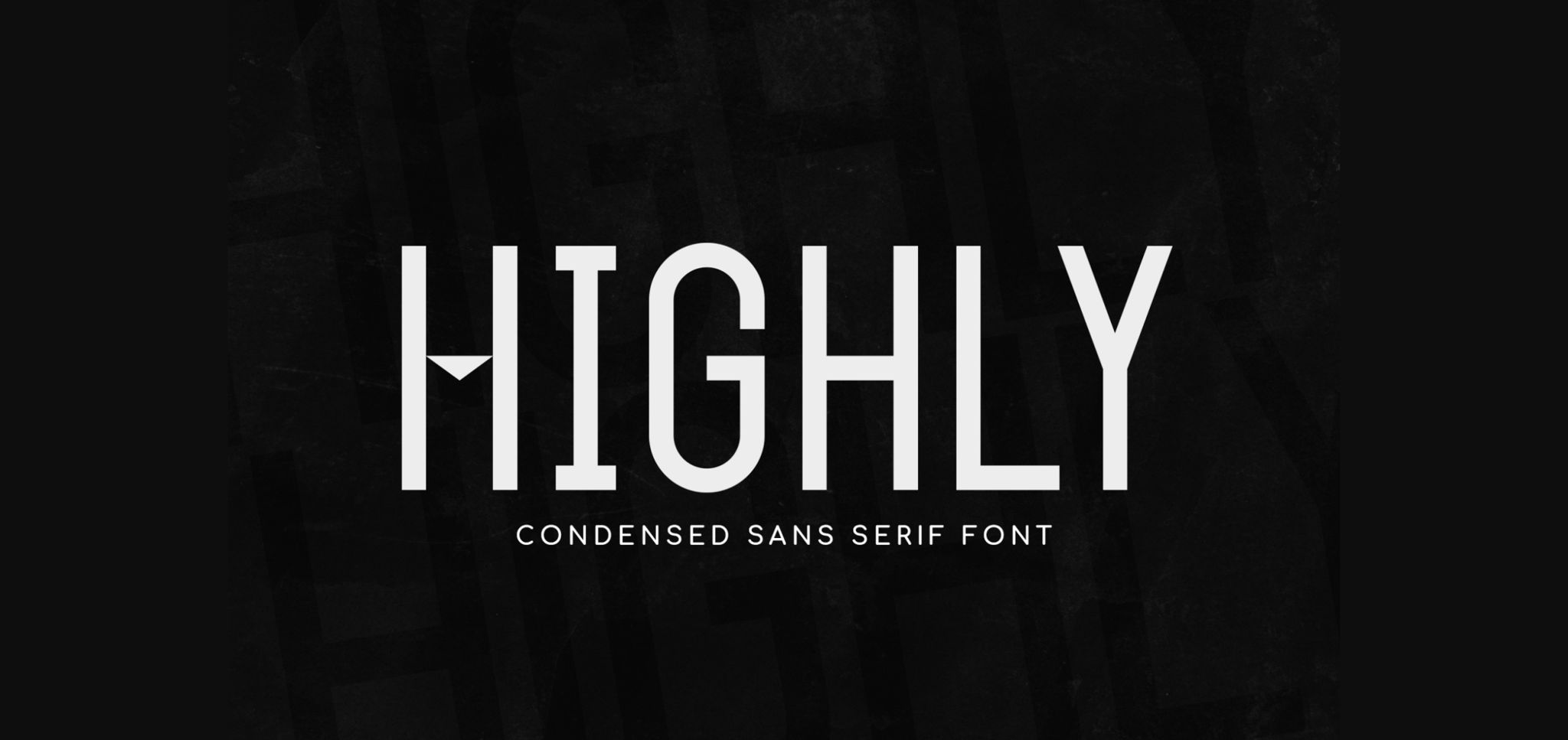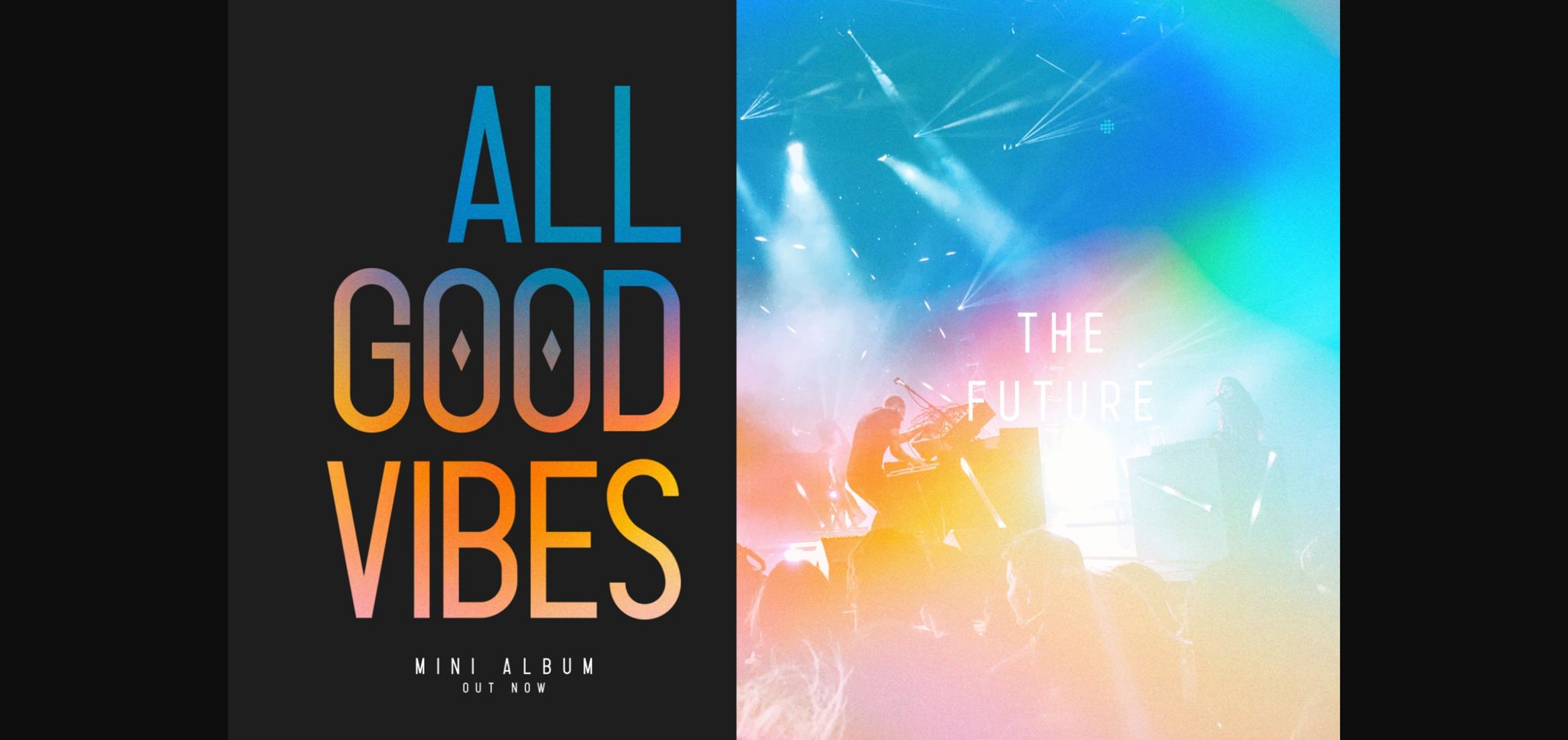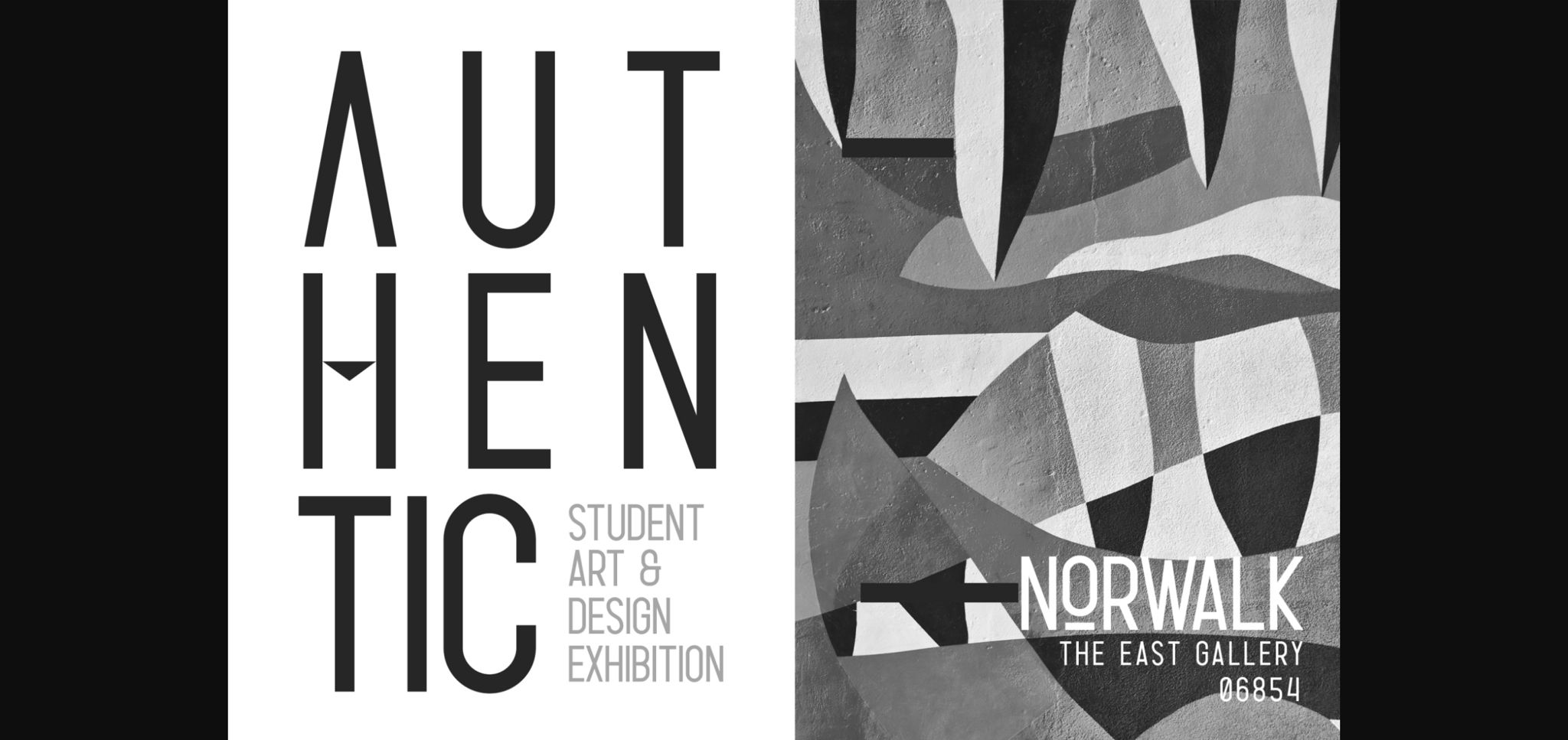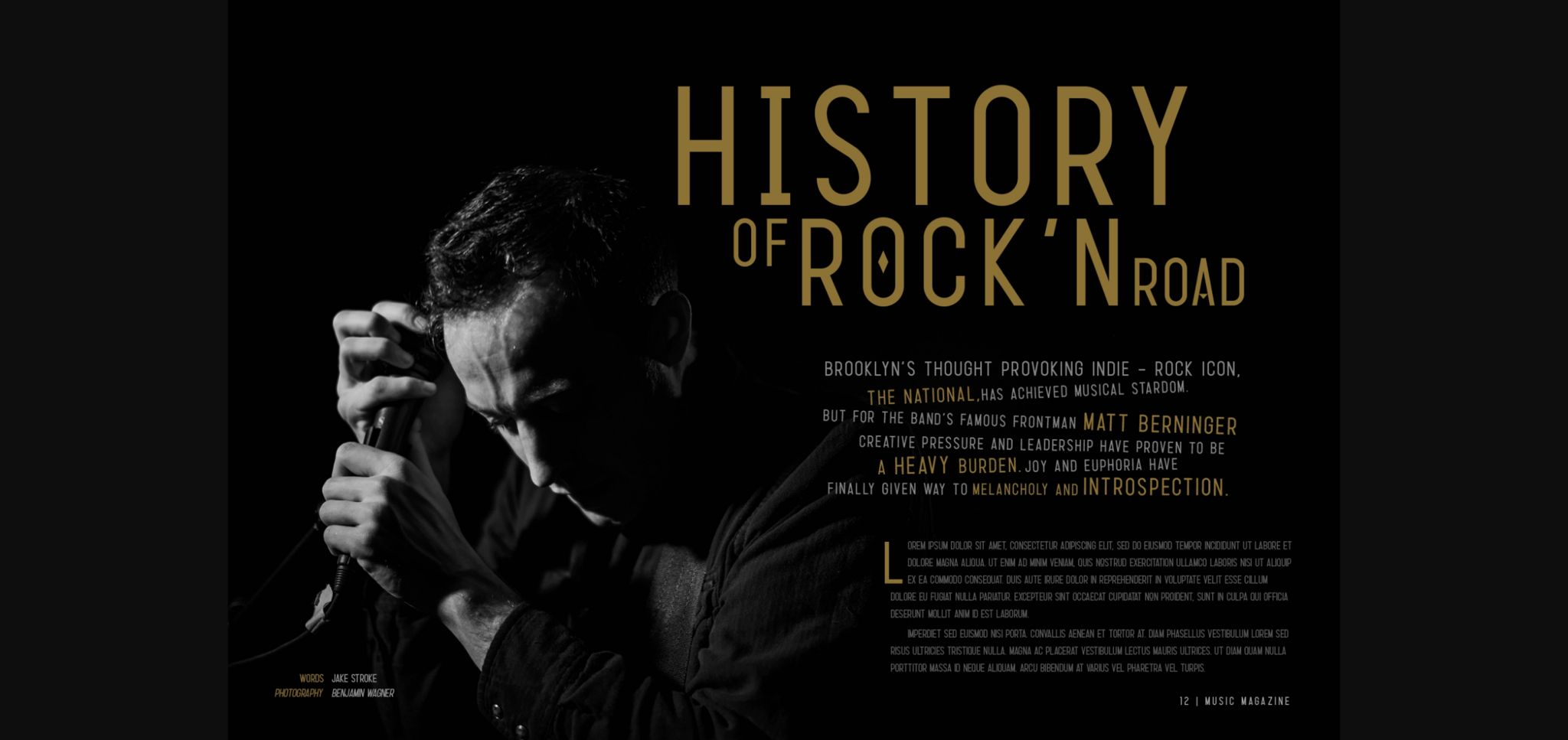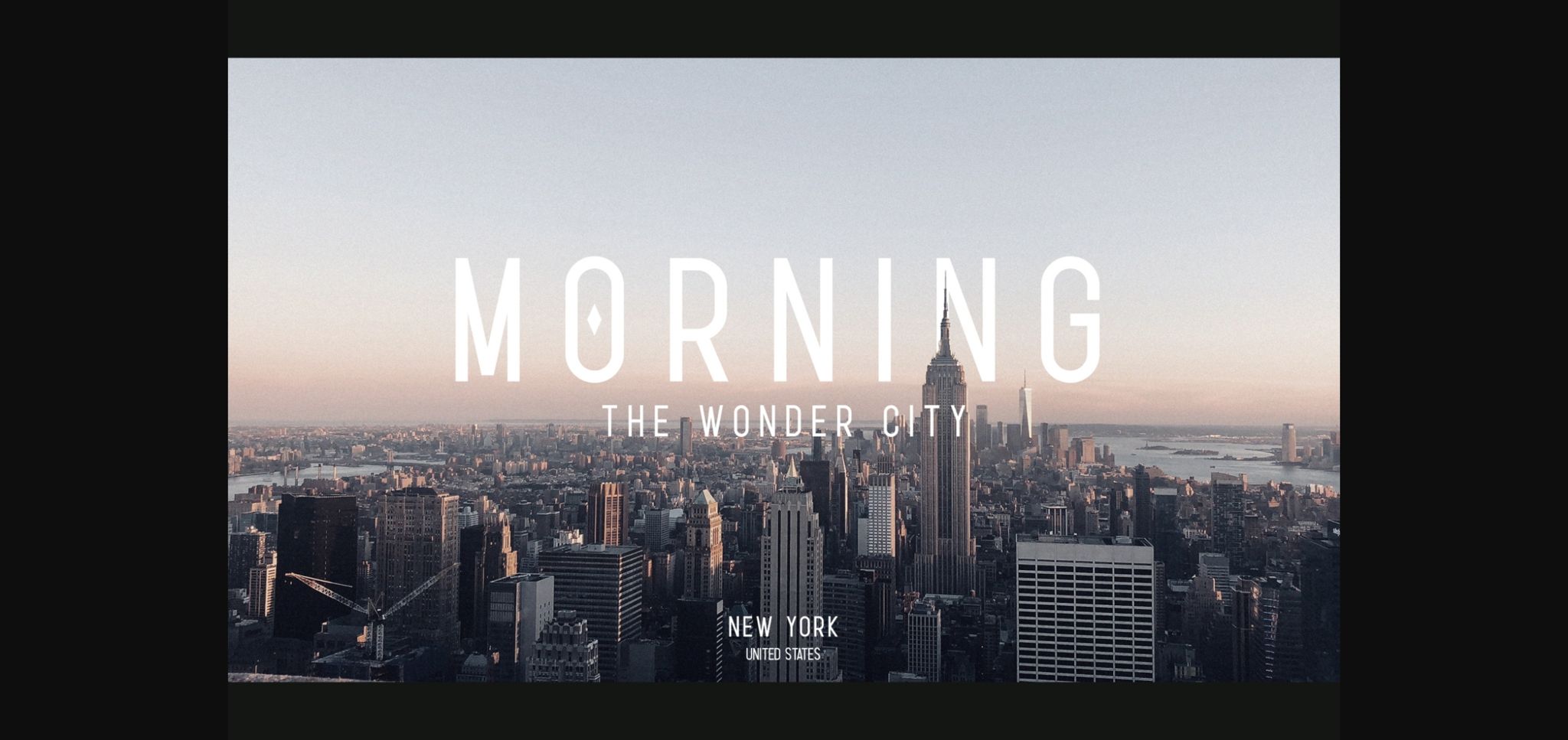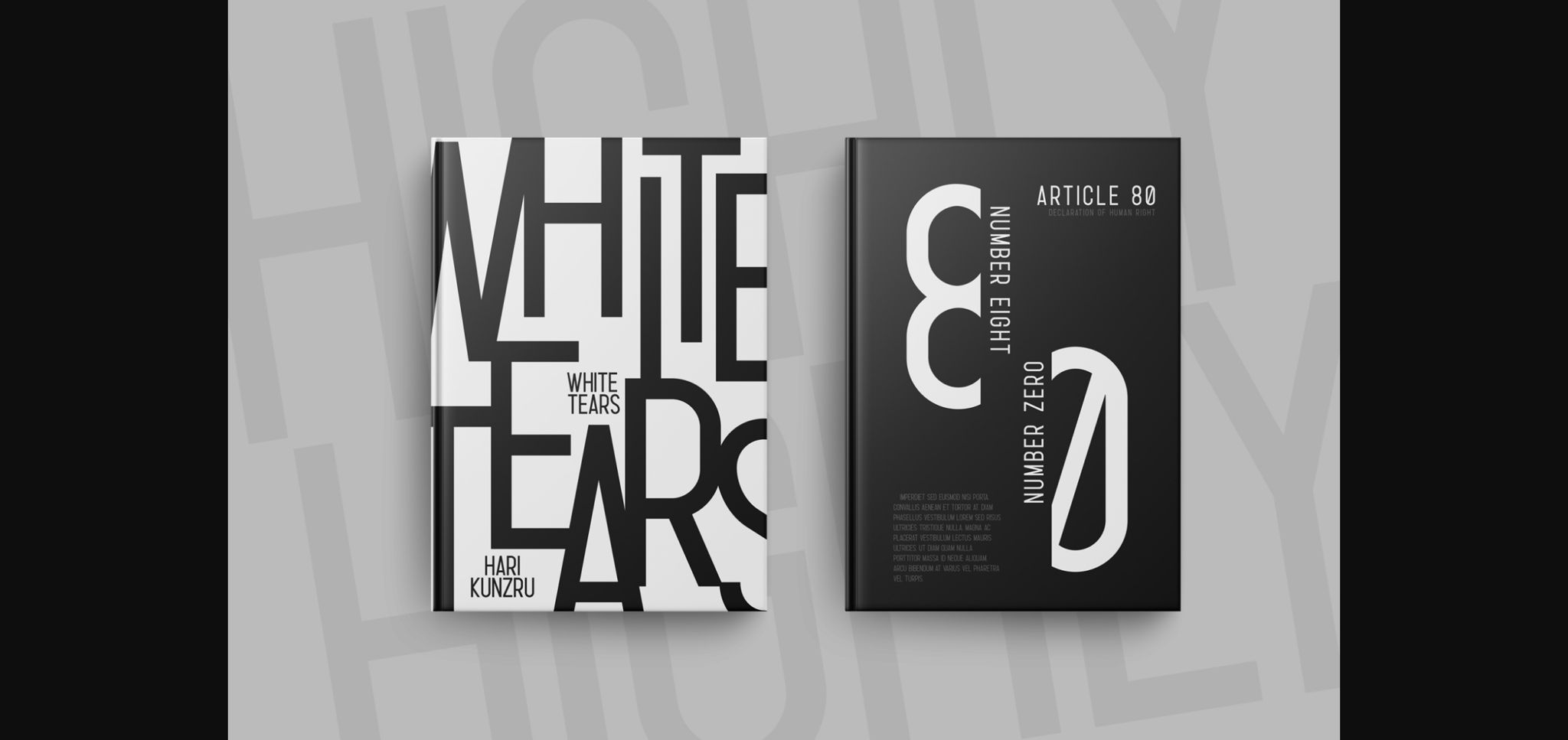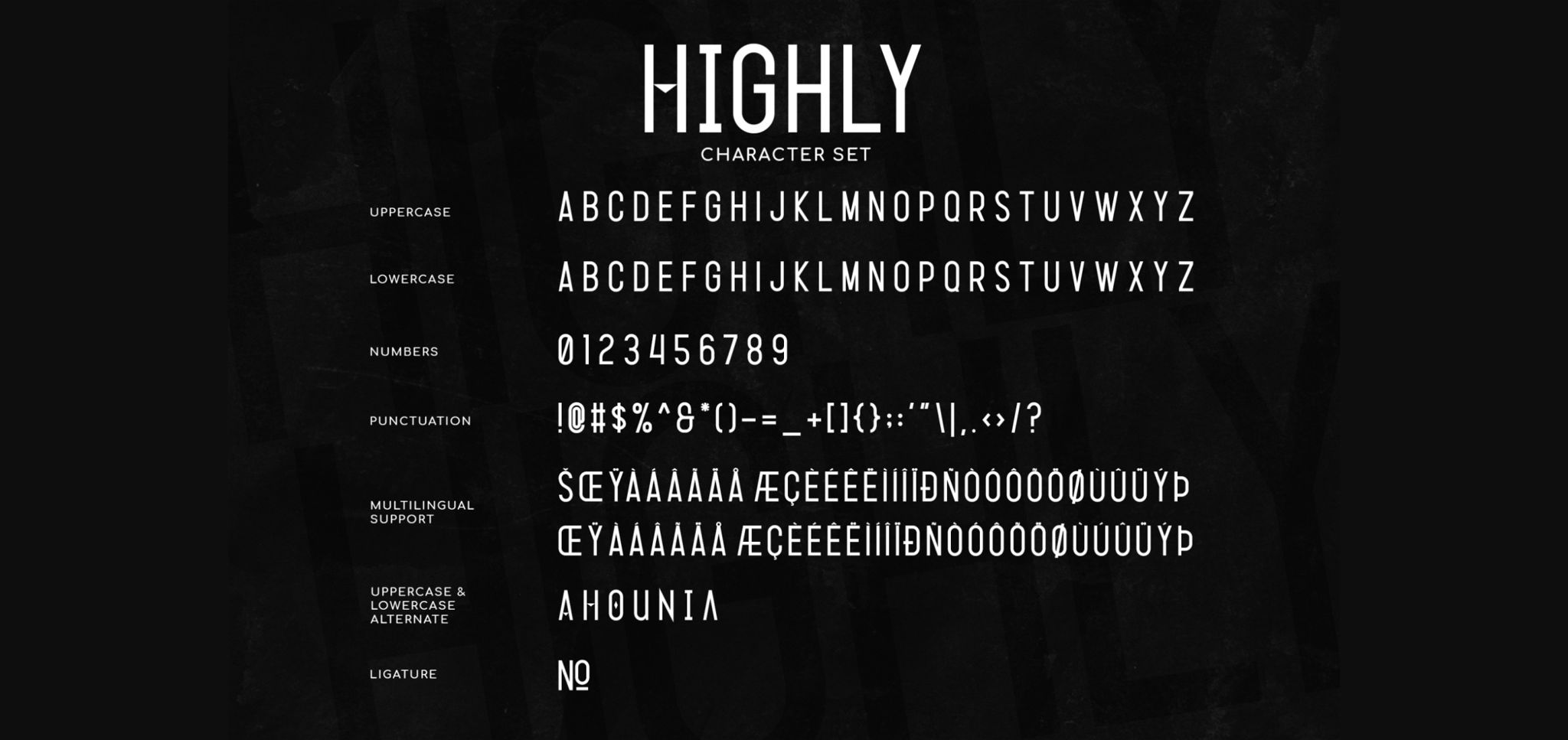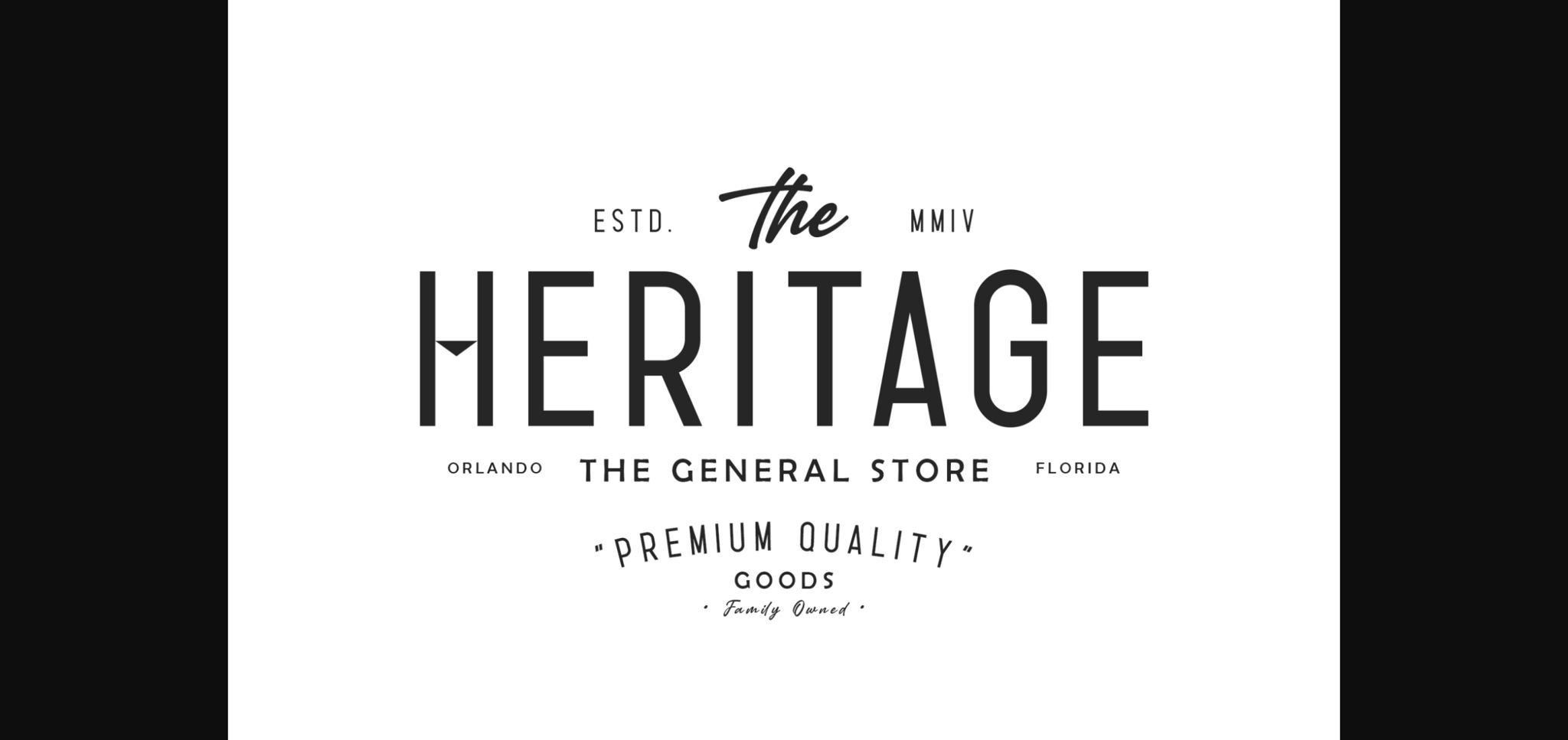
Highly is a cool and simple sans serif font. It can easily be matched to an incredibly large set of projects, so add it to your creative ideas and notice how it makes them stand out!